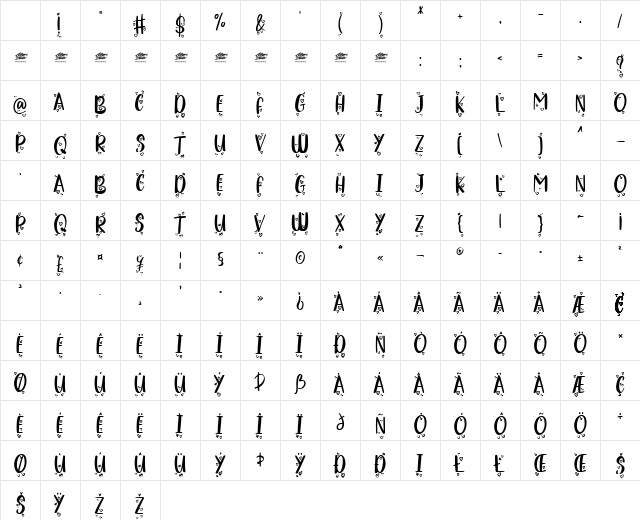
Complete Delight Crush Display - Personal Regular glyph index. Displaying only characters natively supported by Delight Crush Display - Personal Regular font.
Delight Crush Display - Personal is built around its visual character rather than neutral utility - its distinctive forms are designed to make an impression at display sizes. Its slender proportions lend an understated elegance to any composition.
Font Pairing: Pair with a clean neutral sans-serif for body copy to let Delight Crush Display - Personal's character lead without overwhelming the composition.
Pro Tip: Use Delight Crush Display - Personal exclusively at display sizes - it was designed to be seen, not read at length. Let a neutral companion handle body copy.